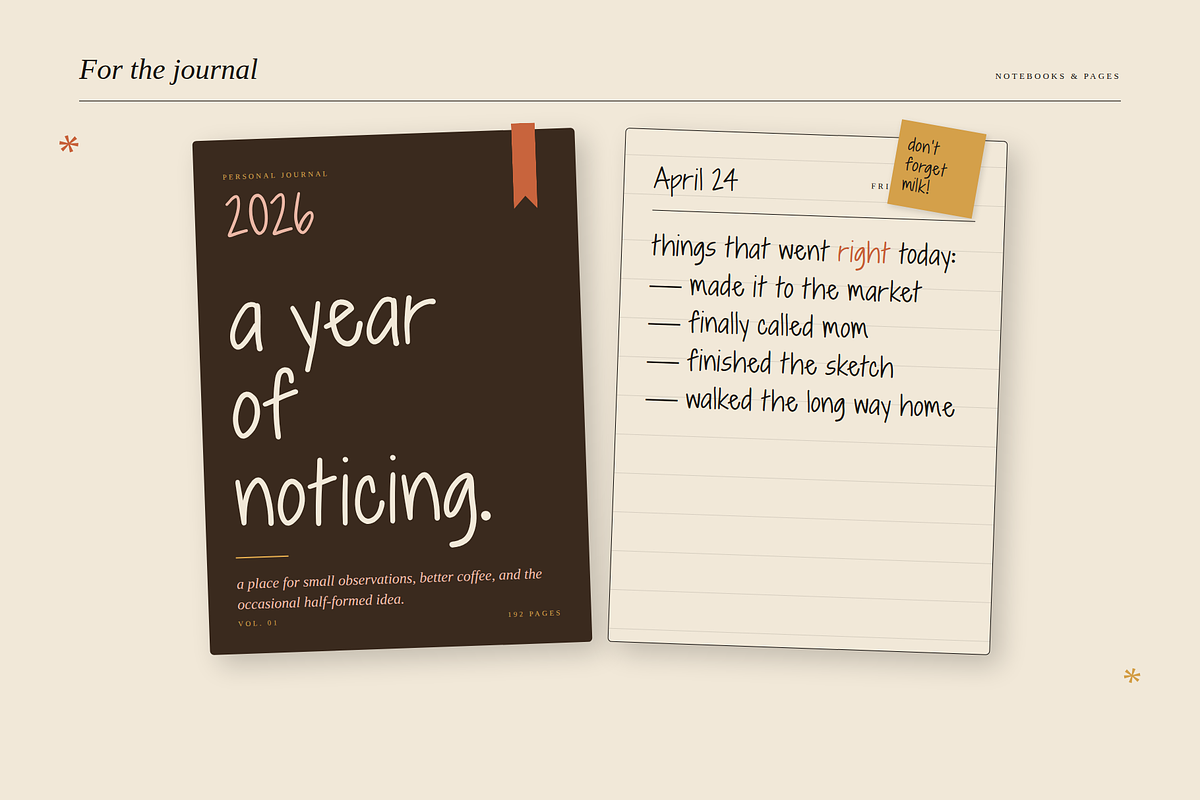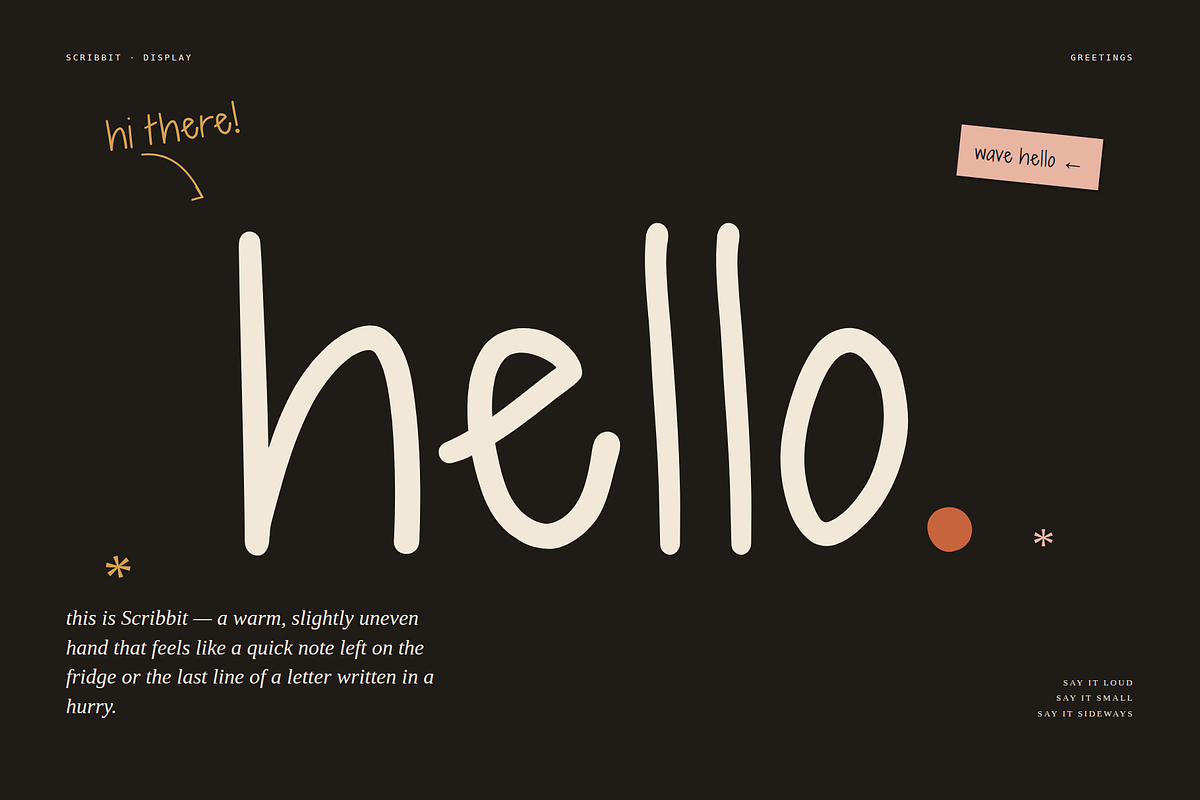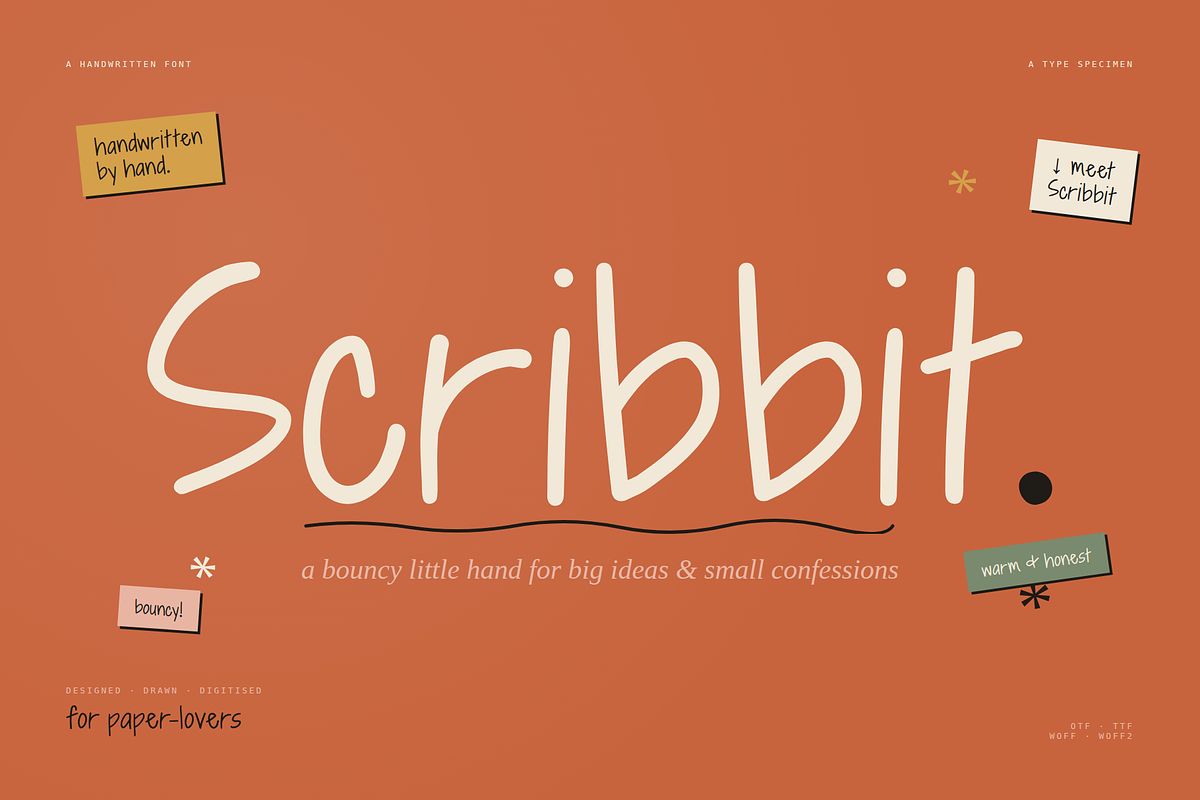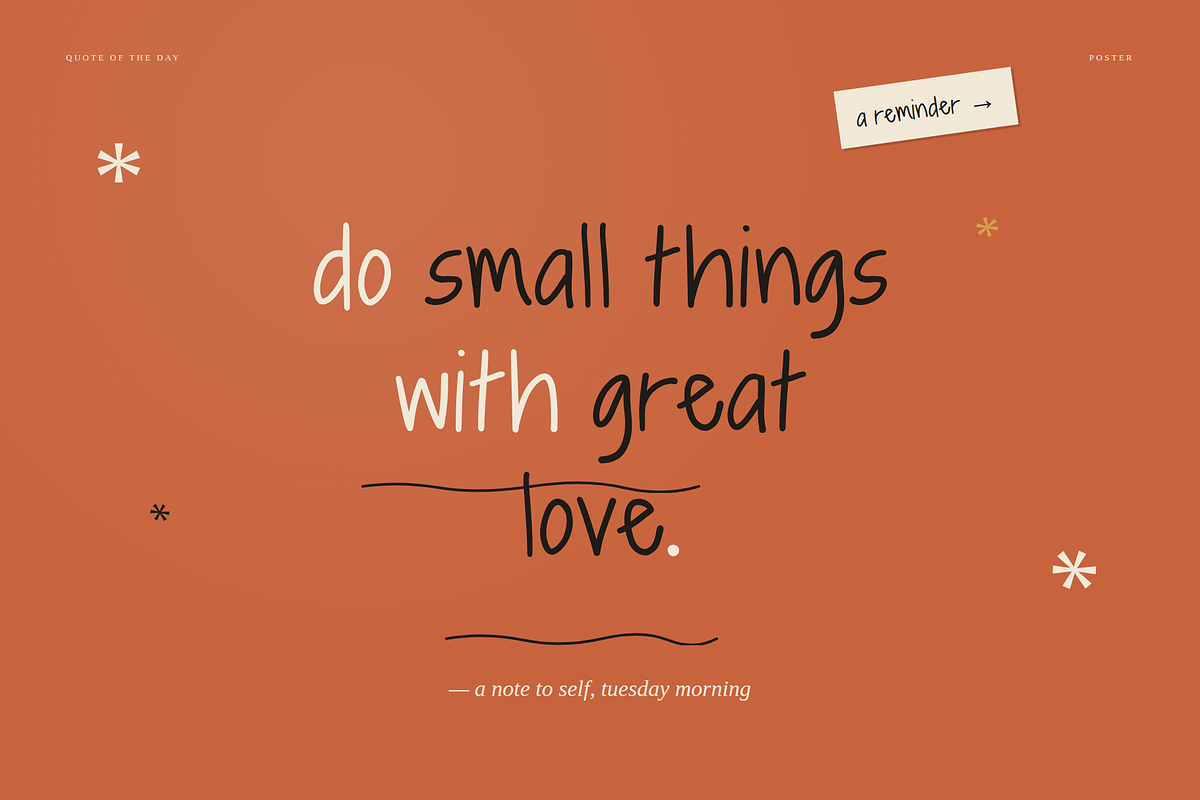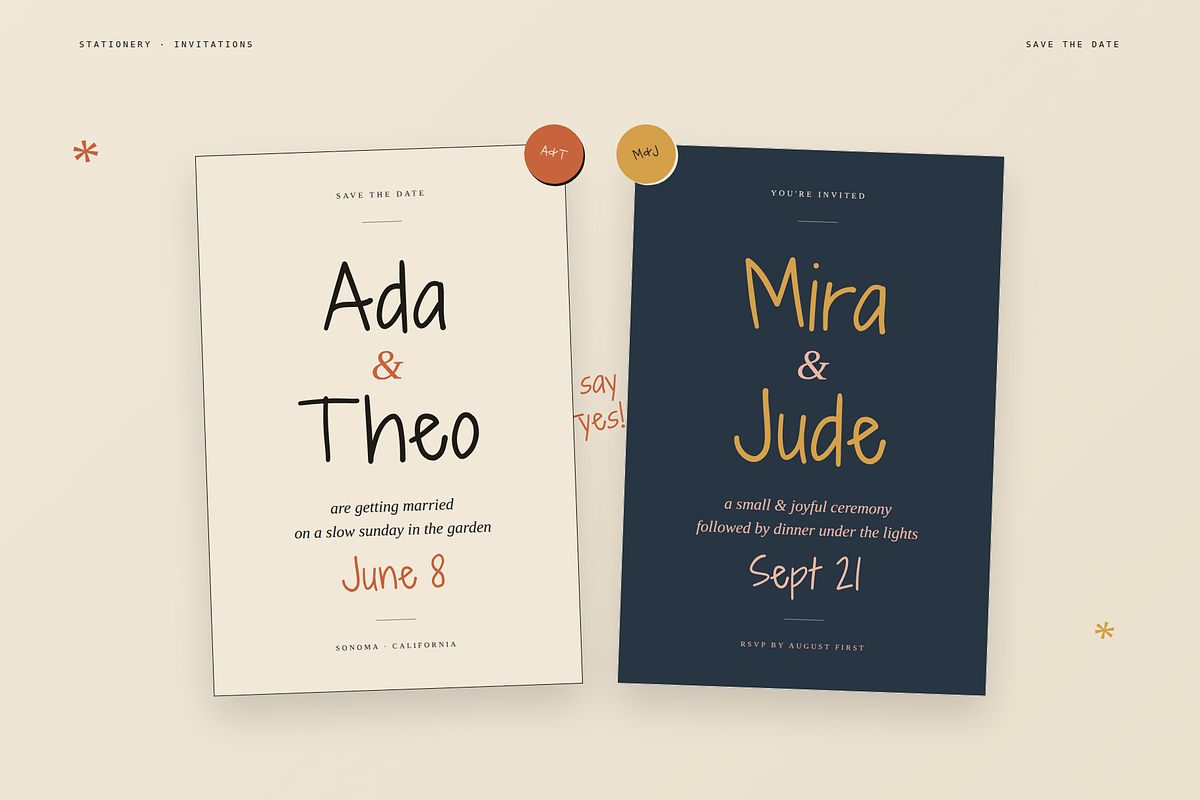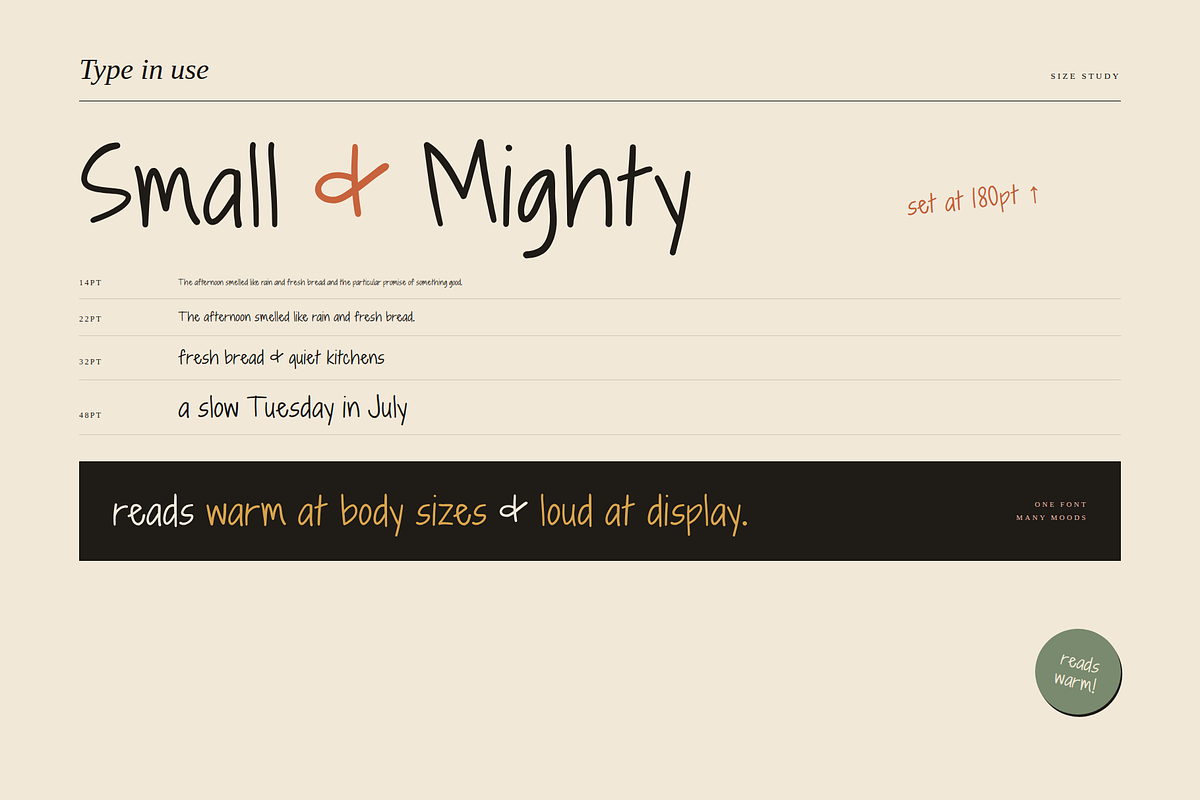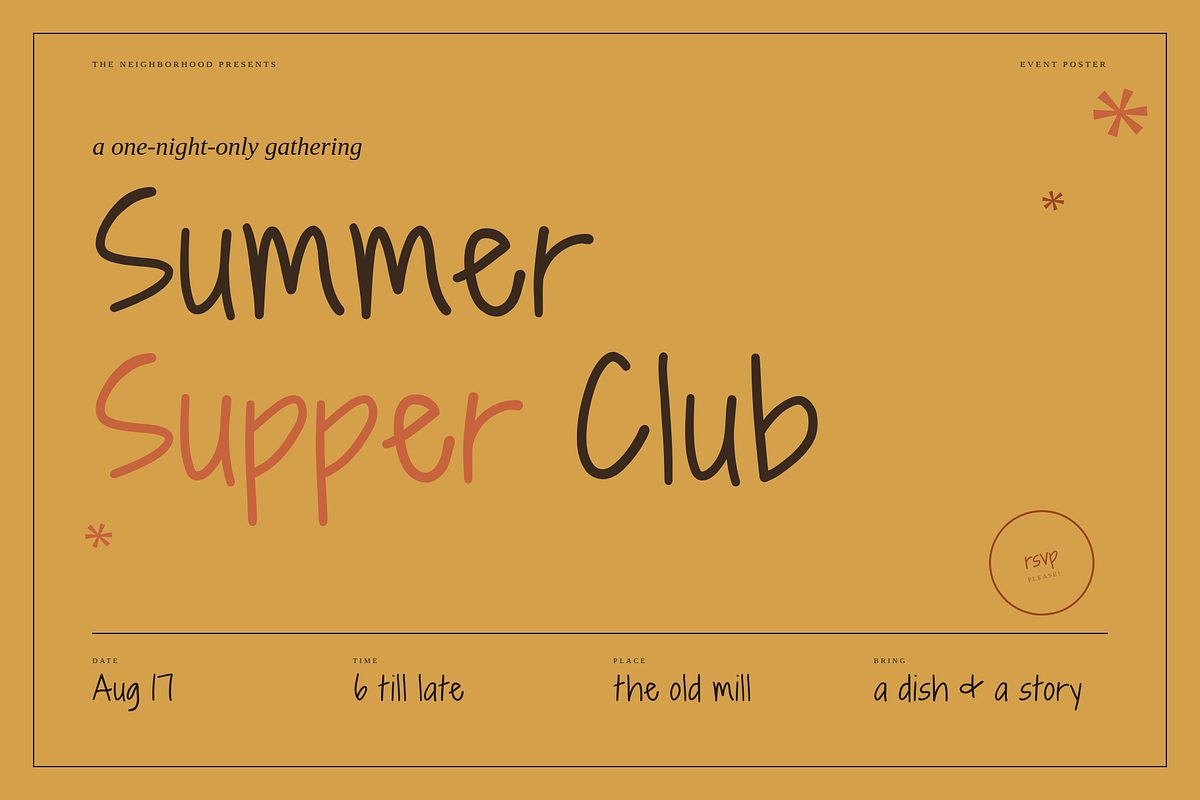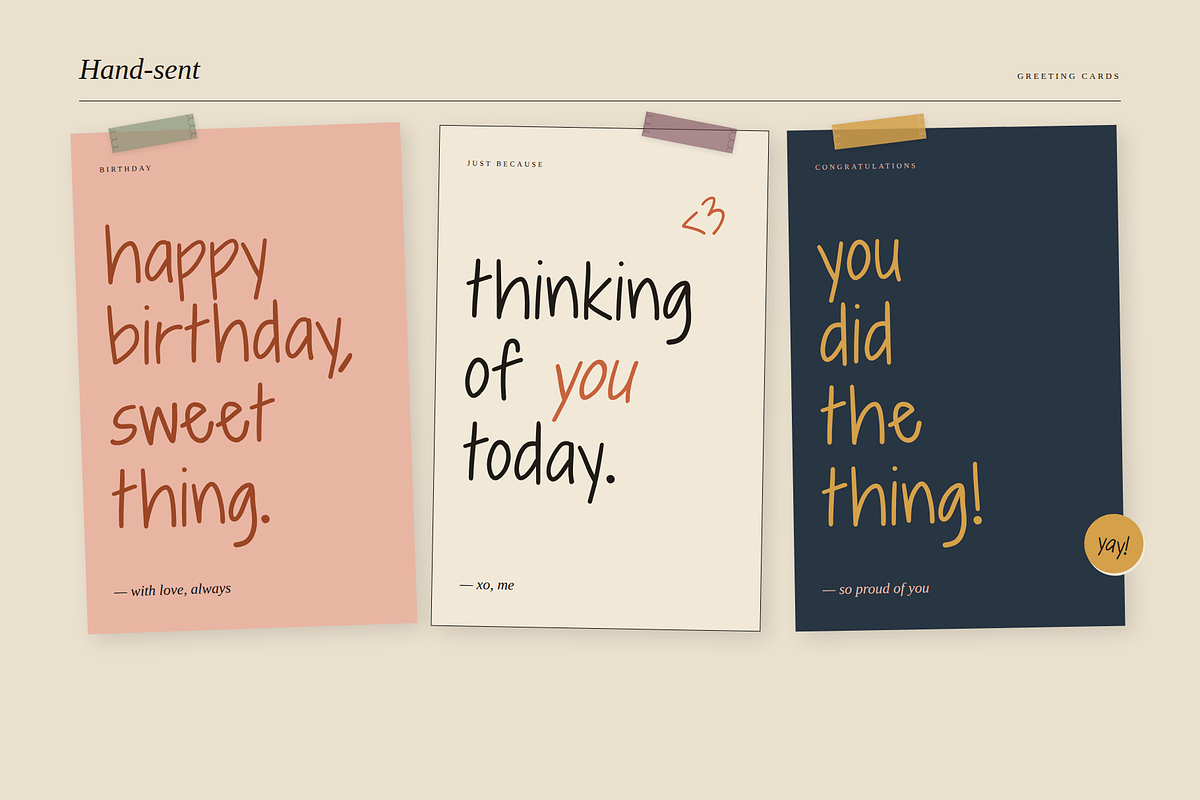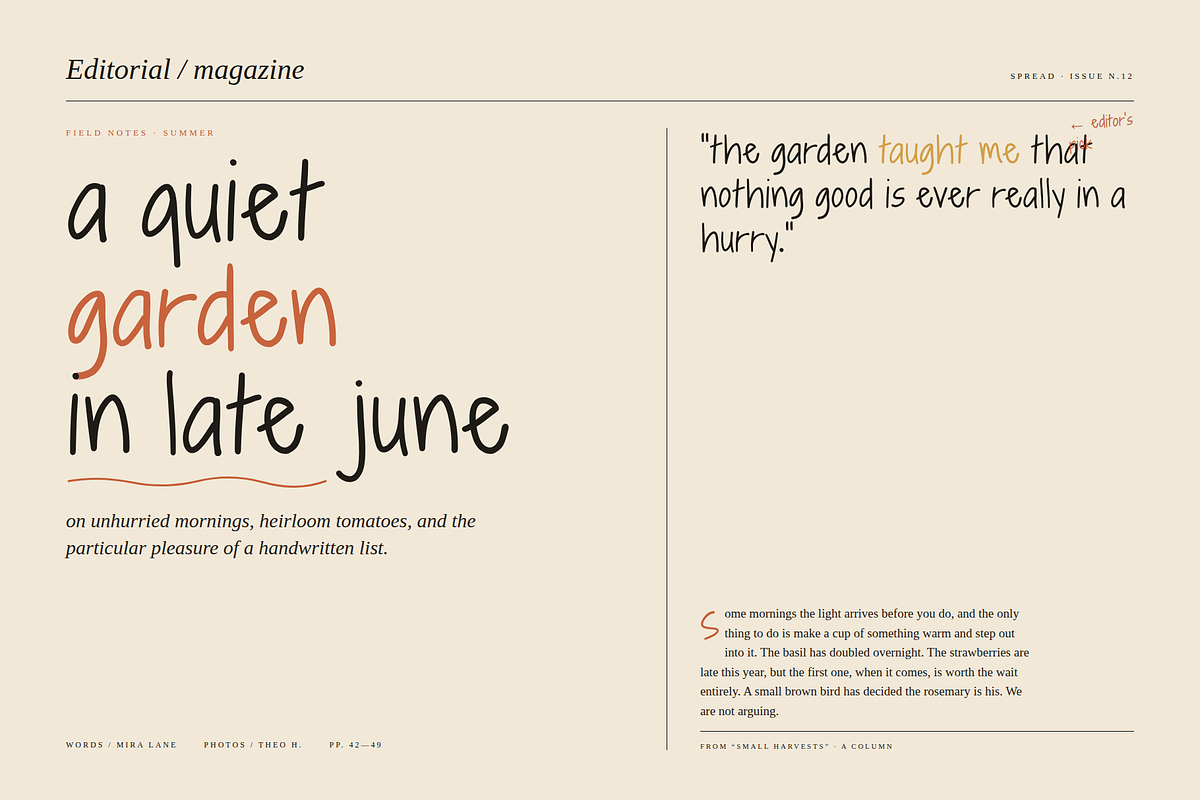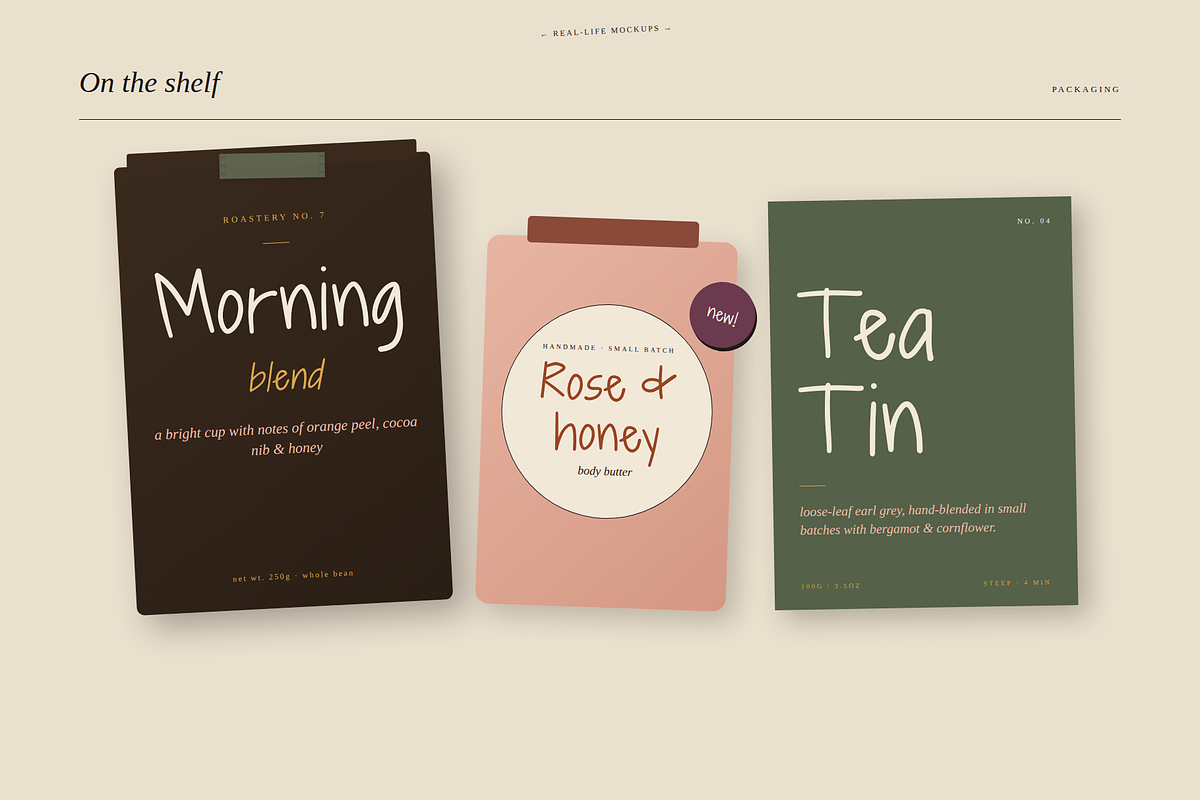
Scribbit - Bouncy for Cozy Brands
Scribbit — a Bouncy Hand-Lettered Font for Cozy Brands
Scribbit is a bouncy, hand-lettered font for people who'd rather be understood than polished. It reads warm at body sizes and loud at display — perfect for brands that want to feel personal, honest, and made by hand.
Think small-batch packaging. Journal pages. Greeting cards. Wedding invites that feel like a note from a friend. Editorial spreads that slow you down.
Made for small business owners, content creators, stationery designers, packaging designers, and anyone tired of fonts that try too hard.
WHY YOU'LL LOVE SCRIBBIT
- Authentic hand-lettered feel with natural bounce and personality
- Reads warm at body copy sizes AND loud at display sizes
- Works as a headline, a signature, or full-paragraph text
- Pairs effortlessly with clean sans-serifs and classic serifs
- Friendly enough for kids' brands, refined enough for editorial
PERFECT FOR
- Small business logos & wordmarks
- Small-batch food, tea, candle & apothecary packaging
- Wedding invitations, save-the-dates & RSVP cards
- Greeting cards, birthday cards & thank-you notes
- Journal pages, planners & stationery
- Book covers & literary magazines
- Editorial headlines & magazine spreads
- Apparel, merch & tote bags
- Event posters, supper clubs & gatherings
- Social media graphics & Instagram quotes
- Children's books & kids' brands
- Florist tags & boutique signage
- Printables & digital products for Etsy sellers